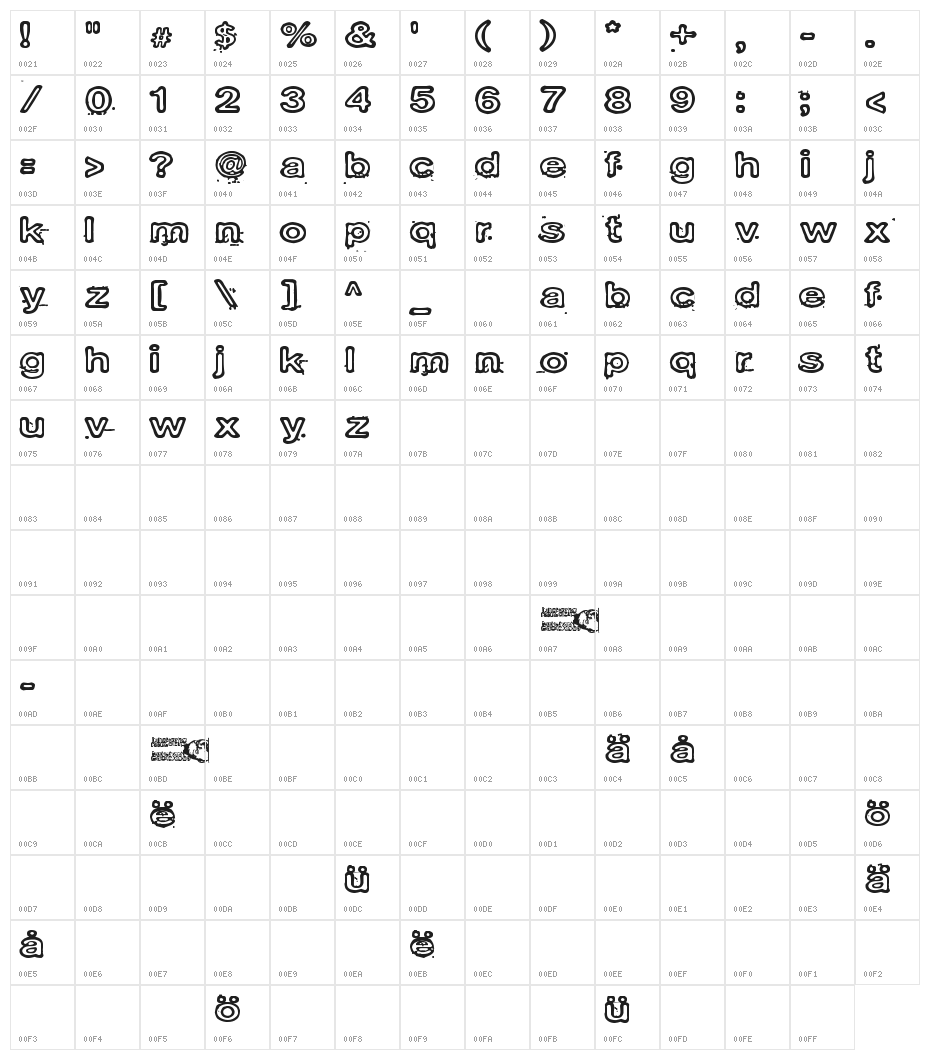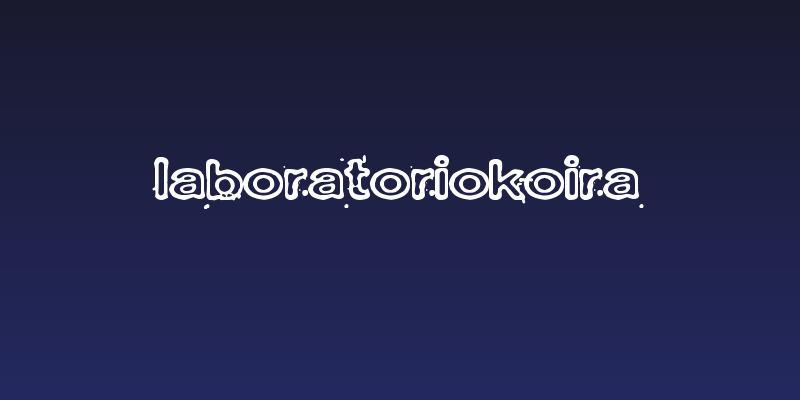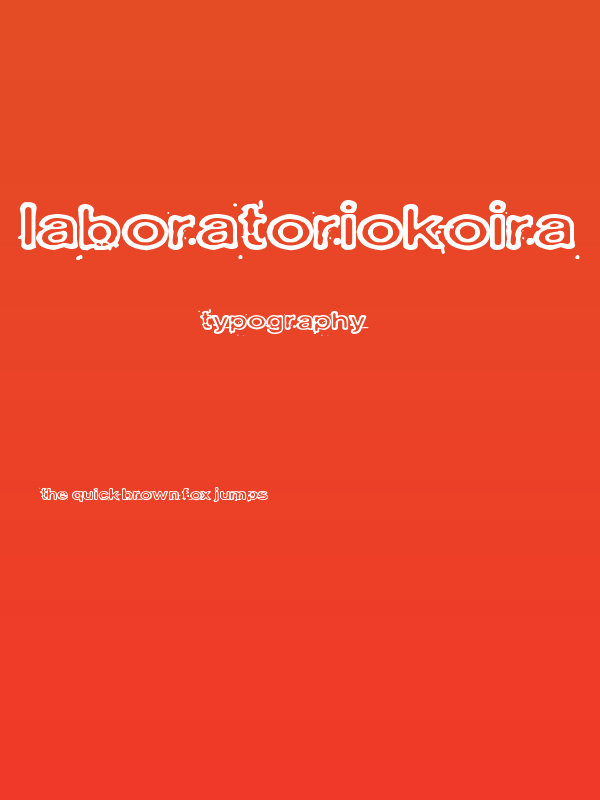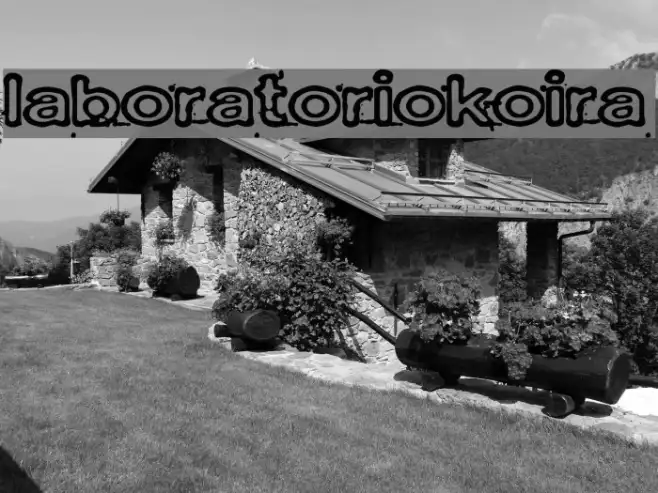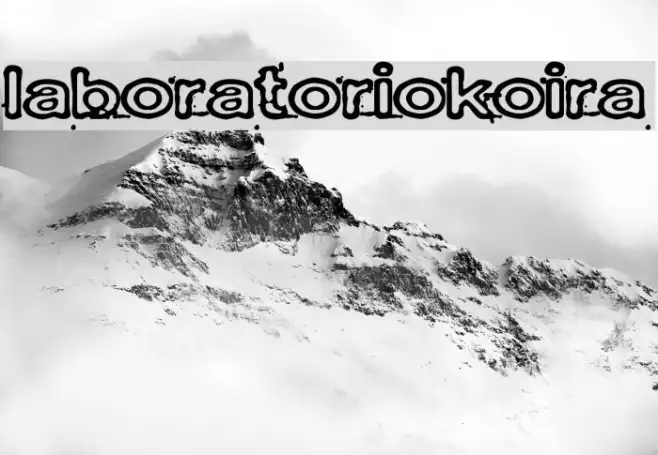
Laboratoriokoira Font
Laboratoriokoira Description
This font features a playful and bold design with a unique distressed effect that gives it a grungy, textured appearance. The letters are outlined, creating a striking contrast between the inner and outer parts of each character. The style is consistent across both uppercase and lowercase letters, as well as numbers and special characters. The font's design is eye-catching and ideal for projects that require a bold statement. Its irregular, worn-out look adds a sense of dynamism and creativity, making it suitable for artistic and unconventional applications.
| Proposed Projects | Ideal for posters, album covers, streetwear branding, and creative digital art projects. |